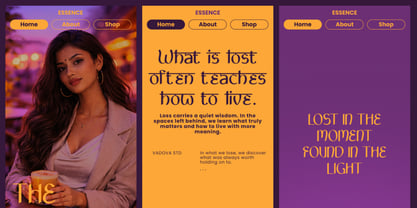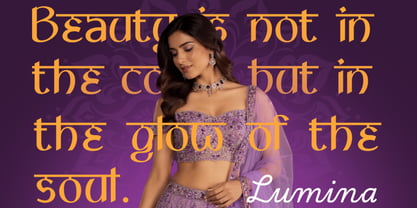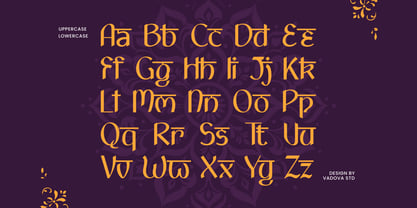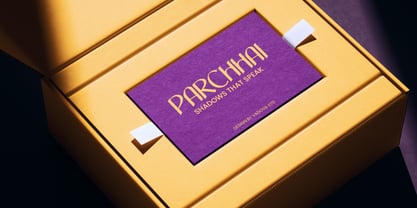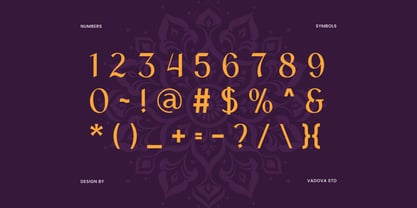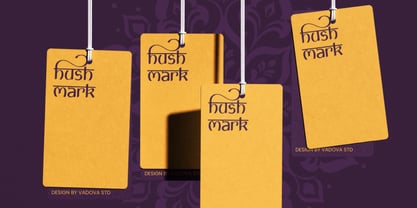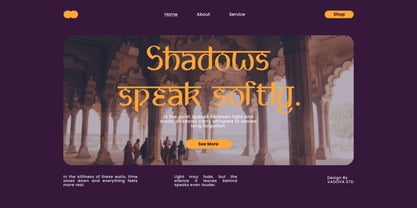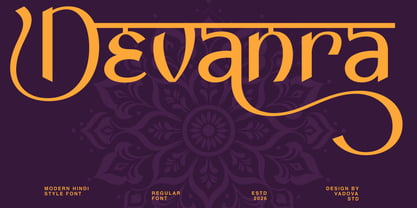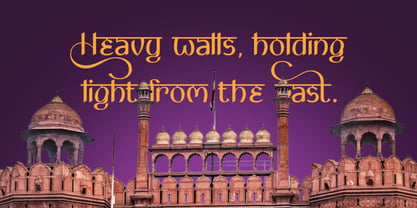
Devanra
von Vadova Std
Die Schriftfamilie Devanra entworfen und von Vadova Std veröffentlicht. Devanra enthält 1 Stile. Mehr über diese Familie
Devanra is a modern Hindi-style typeface that blends cultural ornamentation with refined contemporary serif structure. The letterforms feature elegant curves, distinctive horizontal strokes, and subtle decorative elements inspired by traditional Indian aesthetics. It includes uppercase, lowercase, numerals, and punctuation, carefully designed to maintain visual harmony and readability. This typeface reflects a fusion of traditional Indian visual culture and modern serif design, making it highly relevant for projects that require a strong cultural identity with a refined presentation. It works well in branding, packaging, and editorial layouts where heritage and elegance need to coexist. The decorative details and structured forms make it suitable for both expressive headlines and distinctive visual storytelling.